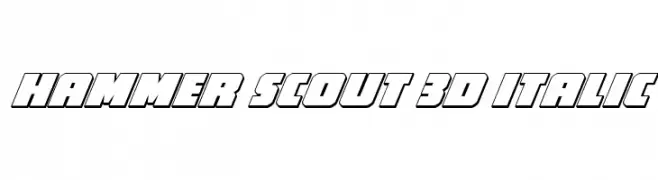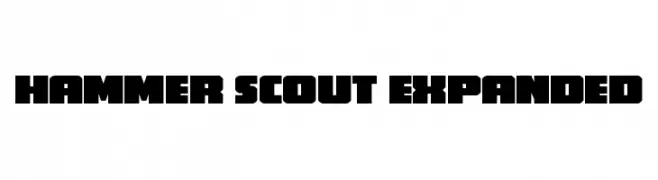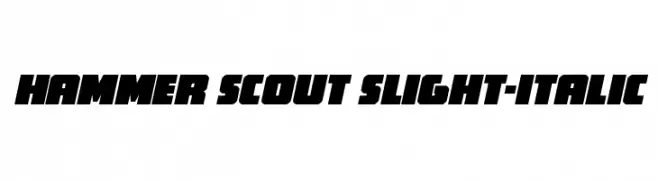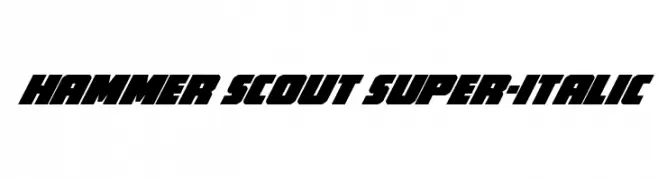
Hammer Scout Super-Italic Font
A bold, italic font with a dynamic and modern style, featuring sharp angles and strong geometric forms.
Hammer Scout Condensed Font
A bold, condensed typeface with a strong, geometric design.
Hammer Scout Semi-Italic Font
A bold, semi-italic font with a dynamic and modern style.
Hammer Scout Font
A bold, geometric font with thick, blocky letters ideal for impactful headlines.
Hammer Scout Spaced Font
A bold, geometric font with a modern, industrial feel.
Hammer Scout Super-Leftalic Font
A bold, left-slanted font with a dynamic and modern style.
Hammer Scout Expanded Italic Font
A bold, expanded italic font with a dynamic and impactful style.
Hammer Scout Condensed Italic Font
Bold, condensed, and italicized font with a dynamic and impactful style.
Hammer Scout Slight-Italic Font
A bold, slightly italicized font with a modern, industrial feel.
Hammer Scout Spaced Italic Font
A bold, italicized font with a dynamic, modern style and tight character spacing.
Hammer Scout Semi-Leftalic Font
A bold, left-italicized font with a strong, modern presence.
Hammer Scout Italic Font
A bold, italic font with a dynamic, geometric style.